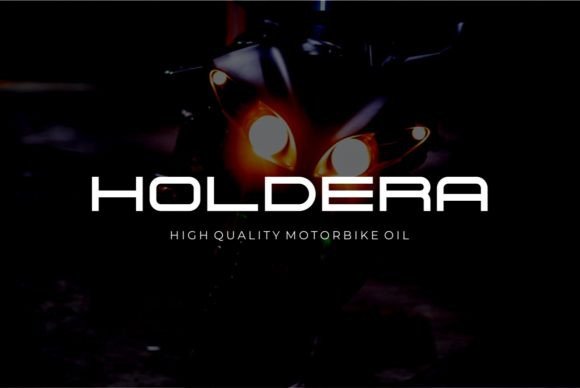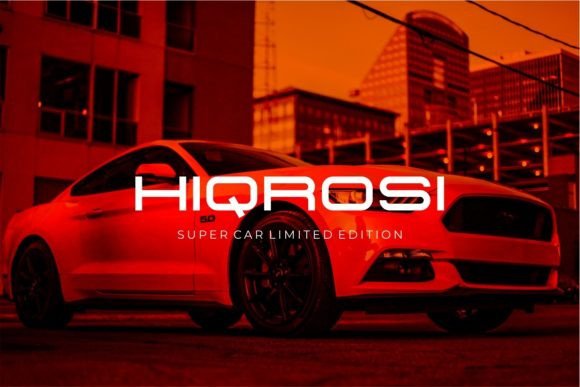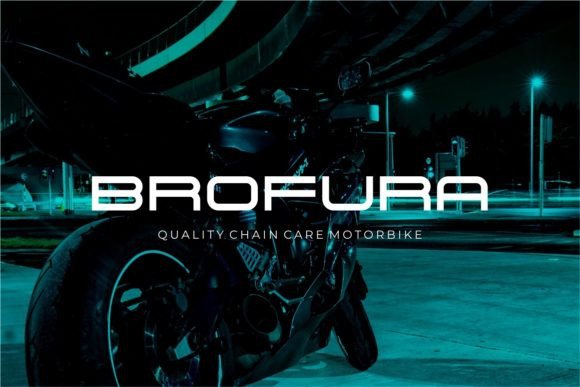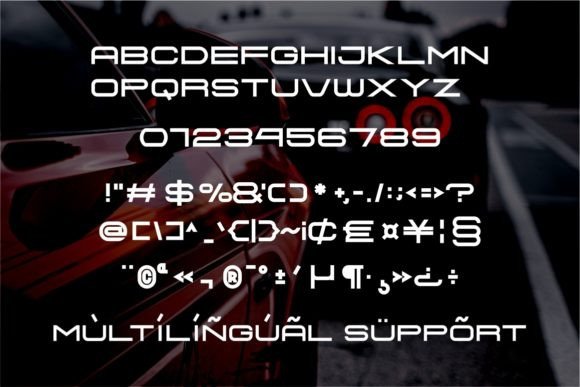
Introduction to Qrosbi Font
Remember that moment when you finally found the perfect font to bring your creative project to life? The one that made all the difference between an ordinary design and an extraordinary one? For designers, this moment is a treasure, and we’re about to share one with you. Introducing the Qrosbi Font, a modern and futuristic sans serif font that’s sure to elevate your designs.
As a valuable resource for designers, the Qrosbi Font is not only visually stunning but also incredibly versatile. With its clean lines and geometric shapes, it’s perfect for creating high-quality designs that demand attention. Whether you’re working on a free download project or need a reliable design resource for your next client, this font is sure to impress.
Key Features of Qrosbi Font
- High-quality font design with a transparent background, ideal for creative projects that require a clean and minimalist look.
- Perfect design resource for graphic designers, digital artists, and anyone working on a creative project that demands a unique and stylish font.
- Resolution-independent, allowing for seamless use in various resolutions and sizes, from small text to large headings.
- Supports multiple languages, making it a versatile font for international designs and projects.
- Comes in a single weight, providing a consistent and elegant look across various design elements.
Honest Review: Qrosbi Font
As a designer, I’m always on the lookout for high-quality design resources to elevate my creative projects. The Qrosbi Font caught my attention with its unique style and versatility. Here’s my honest review:
- Unique style and character set: The Qrosbi Font offers a distinctive aesthetic that can add a touch of personality to any design project.
- High-quality design: The font is well-crafted and appears to be designed with attention to detail.
- Transparent background: The font comes with a transparent background, allowing for easy integration with other design elements.
While the Qrosbi Font has many positive qualities, there are a few limitations to consider:
- Limited language support: The font may not support a wide range of languages, which could be a drawback for designers working on international projects.
- Not suitable for small text: The font’s unique style may not be ideal for small text sizes, as it can become difficult to read.
Overall, I’m impressed with the Qrosbi Font’s potential as a design resource. Its unique style and high-quality design make it an excellent choice for creative projects. However, designers should be aware of its limitations and consider them when deciding whether to use the font.
The Qrosbi Font is a high-quality design resource ideal for creative projects that require a unique and eye-catching font. With a transparent background, this font can be easily integrated into various design applications.
Tips for Getting the Most Out of Qrosbi Font
To get the most out of the Qrosbi Font, use it in conjunction with other high-quality design resources. Experiment with different font sizes, colors, and combinations to create unique and eye-catching designs.
The Qrosbi Font is commonly used in creative projects such as:
- Poster design